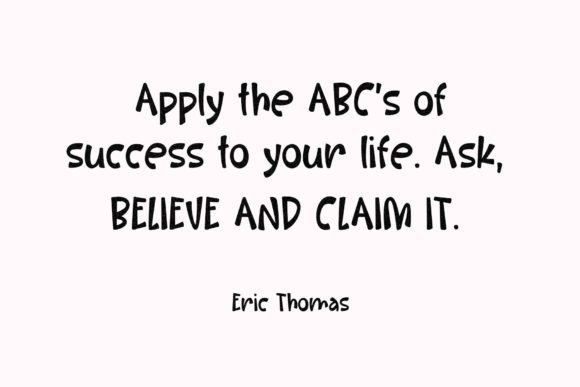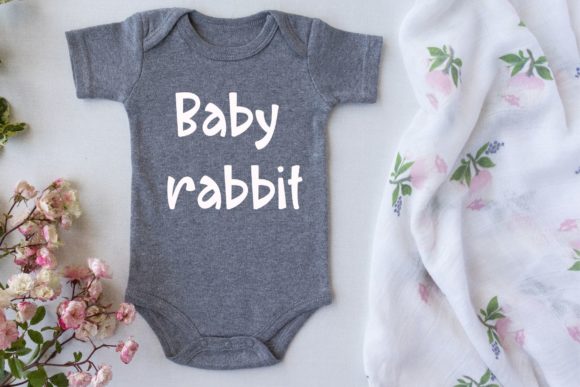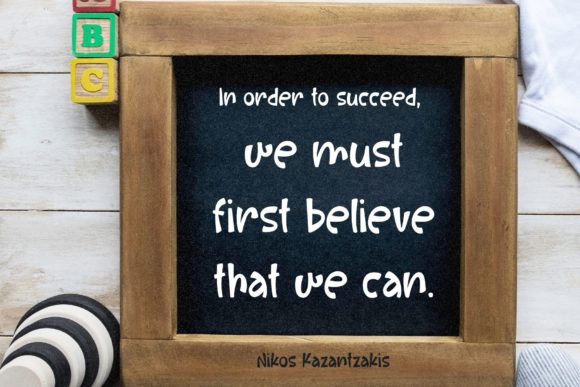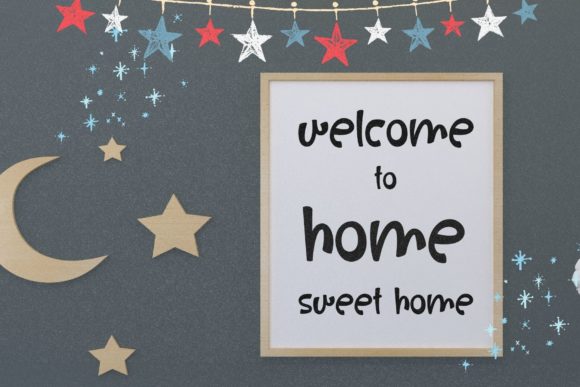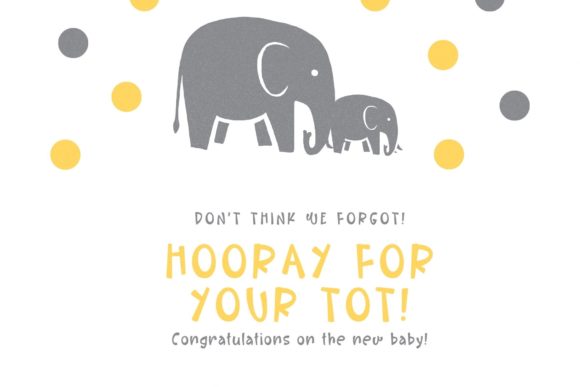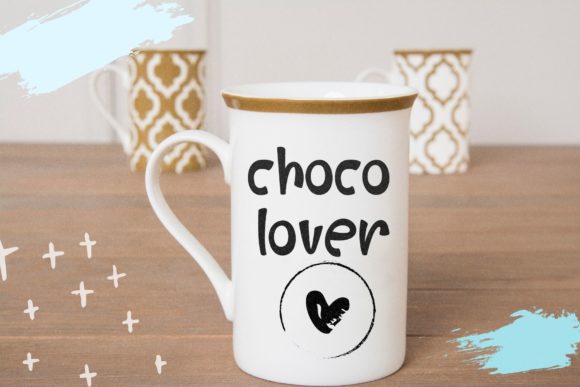
Unleashing Whimsy with Cute Meow Nursery Font
Have you ever stared at a blank page, your pencil hovering above the paper, waiting for inspiration to strike? I know I have. And sometimes, it’s the smallest spark that sets off a creative firestorm. For me, it was a trip to a local children’s bookstore, where the walls were adorned with colorful illustrations and playful typography. That’s when I fell in love with the Cute Meow Nursery Font – a sweet, handwritten script that screams ‘fun’ and ‘whimsy’.
Designed to bring a smile to the faces of young ones, Cute Meow Nursery Font is the perfect addition to any children’s themed design. Its quirky charm and playful feel make it a valuable asset for designers looking to add a touch of personality to their projects. Whether you’re creating a nursery decor, a children’s book, or a marketing campaign for a family-friendly brand, this font is sure to bring a sense of wonder and magic to your work.
Cute Meow Nursery Font Key Features
- Font Family: Cute Meow Nursery Font is a custom-designed font family, perfect for creating adorable and playful designs.
- Character Set: Includes a wide range of characters, including uppercase and lowercase letters, numbers, punctuation marks, and special characters.
- Unique Characteristics: Features cute and playful meow-inspired designs, making it perfect for nursery, kids, and pet-related projects.
Cute Meow Nursery Font Review
I recently had the chance to work with the Cute Meow Nursery Font, and I must say it’s a delightful addition to any nursery or child-related design project. Here’s my honest review:
- The font’s playful, whimsical style perfectly captures the charm of a nursery or kids’ space.
- The letterforms are well-designed, with clear, easy-to-read characters that are perfect for titles and headings.
- The font includes a range of useful ligatures and swashes, making it easy to add a personal touch to your designs.
- The font’s weight range is well-balanced, from light to bold, allowing for flexibility in your design choices.
- The font’s character set is limited, which may make it difficult to use for projects that require a wide range of languages or special characters.
- The font’s style may be too cutesy or over-the-top for some design projects, so it’s essential to use it judiciously.
Overall, I’m impressed with the Cute Meow Nursery Font. While it has some limitations, its playful style and useful features make it a great addition to any nursery or kids’ design project. Just be sure to use it thoughtfully and consider your design goals before incorporating it into your work.
Use the Cute Meow Nursery Font for:
– Baby-themed designs, such as nursery decor, baby blankets, and onesies.
– Children’s book illustrations and typography.
– Party invitations and decorations.
– Social media graphics and advertisements.
– Experiment with pairing the font with bold colors and playful illustrations to create a unique and eye-catching design.
Great Vibes is a modern, elegant script font that works well for headings and titles. It’s ideal for designs that require a touch of sophistication and whimsy. Compared to Cute Meow Nursery Font, Great Vibes has a more refined and mature feel, making it suitable for a wider range of design projects.
Pacifico is a beautiful, cursive font that’s perfect for creating a relaxed and beachy vibe. It’s great for designs that need a laid-back, casual feel. While Pacifico shares a similar handwritten quality with Cute Meow Nursery Font, it has a more fluid and organic look that’s perfect for summer-inspired designs or travel-related projects.